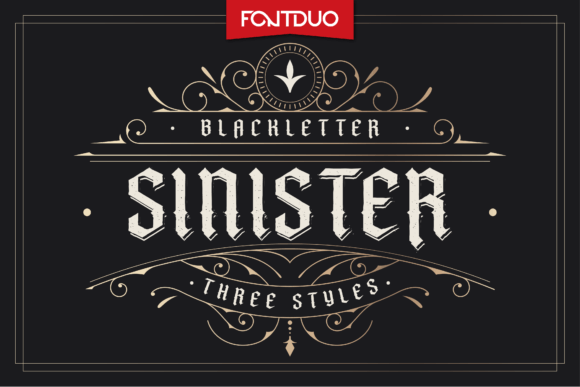
Enter the domain of darkness where intrigue and elegance intertwine – Sinister Font, the blackletter masterpiece that will cast a spell on your designs. Its graceful ascenders and descenders dance across the page, evoking a sense of mystery and sophistication. Crafted by the talented FontDuo, Sinister is more than just a font; it's an experience.
Immerse yourself in the allure of Sinister's bold and daring strokes, perfect for conjuring a captivating aura around your projects. Unleash your creativity and let Sinister enchant your product packaging, branding endeavors, or any venture that demands a touch of audacity.
With Sinister, the boundaries of expression dissolve. Transport your audience to a gothic realm where every letter carries a tale of intrigue. Its timeless charm and undeniable presence will leave an indelible mark on their minds, ensuring that your messages resonate long after the page is turned.
As you type with Sinister, feel the power of its enchanting curves and sharp angles. Its innate versatility lends itself seamlessly to a myriad of applications. Whether you're crafting logos that demand attention, weaving captivating headlines, or casting spells with your social media posts, Sinister will be your loyal companion.
Dare to embrace the dark allure of Sinister and witness the transformation of your designs into captivating works of art. Its mesmerizing beauty will leave you ensnared, forever under its spell.